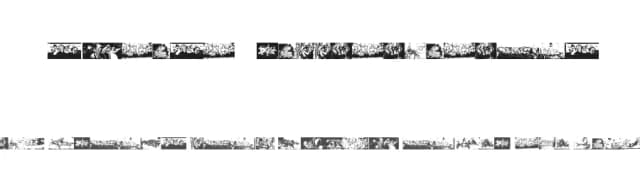
About Beatbox Font
Use this font for that funky, breakdancin', hip-hop, feel good vibe. Contains many classic and/or rare boomboxes and a few other odds and ends
Beatbox Font
by Mathew Taft